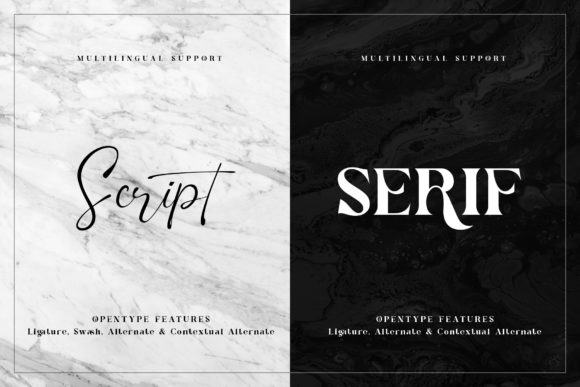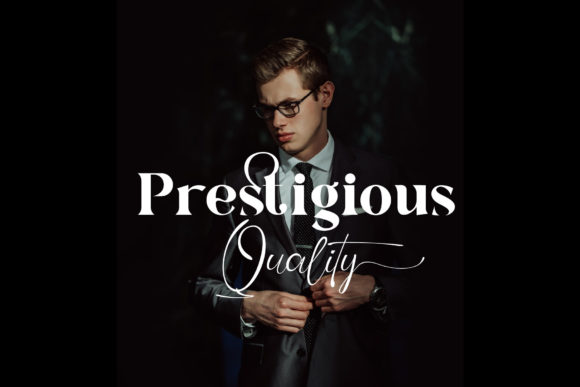
Elegance Signature Font
db-ku.com - Script & Handwritten -- Elegance Signature is a lovely duo font (serif and script). Masterfully designed to become a true favorite, this combination has the potential to bring each of your creative ideas to the highest level!